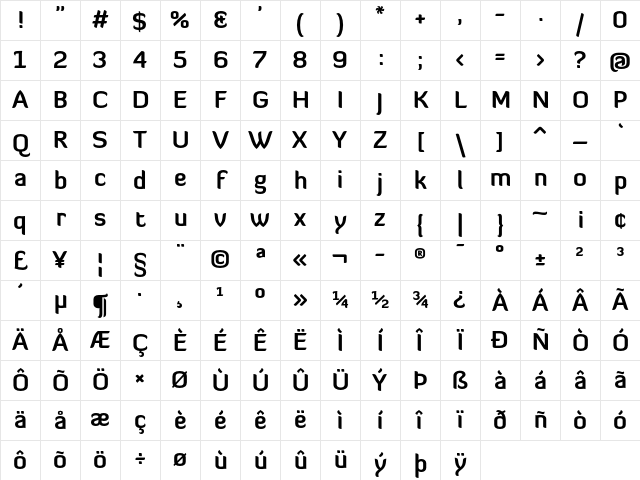
Complete Diavlo Bold glyph index. Displaying only characters natively supported by Diavlo Bold font.
Diavlo is a composed and adaptable typeface that performs quietly and consistently across a wide range of design contexts. Its bold stroke weight gives it real presence on the page.